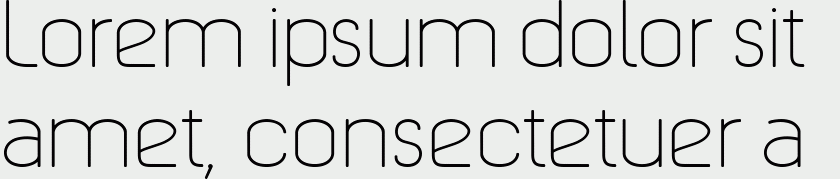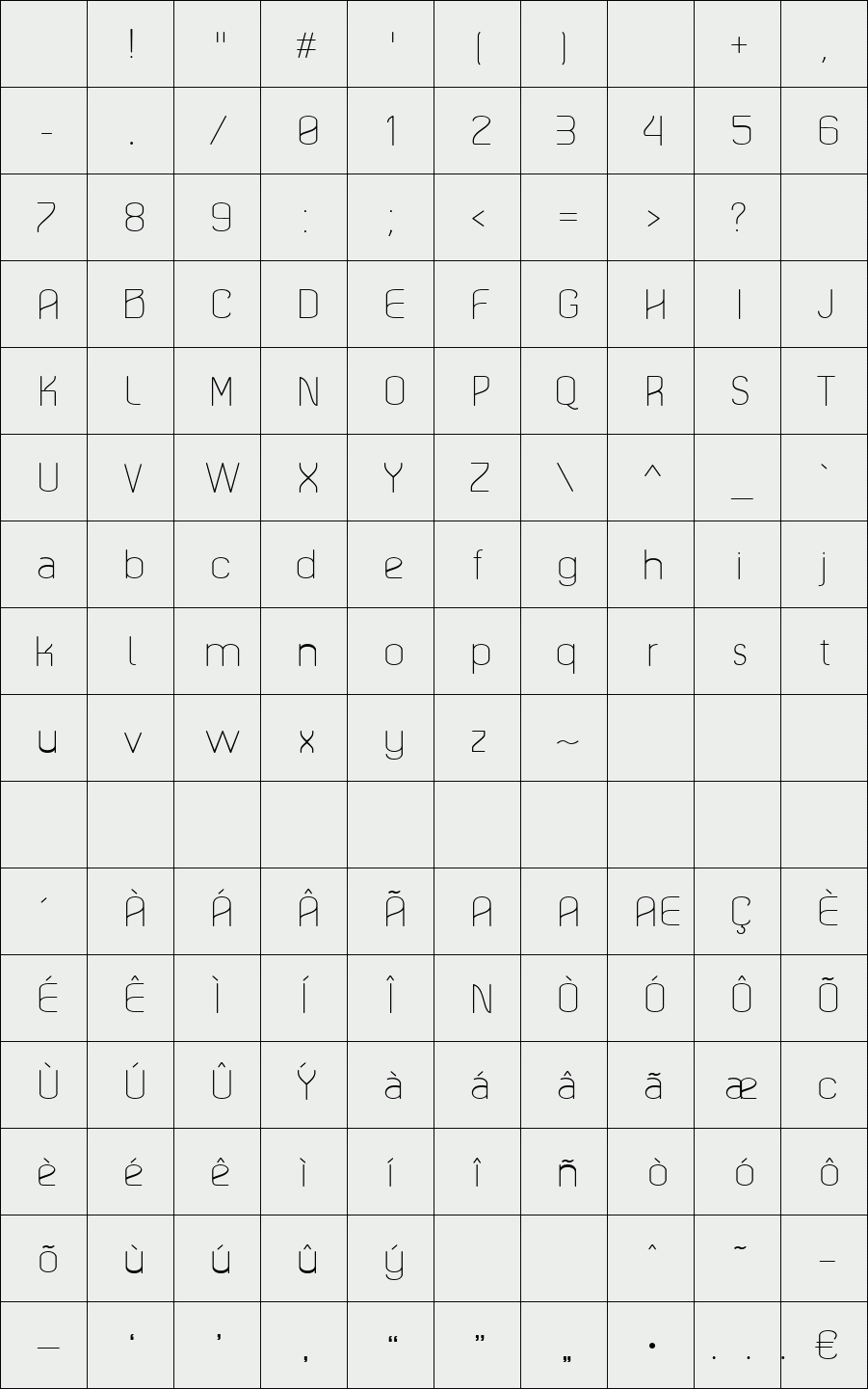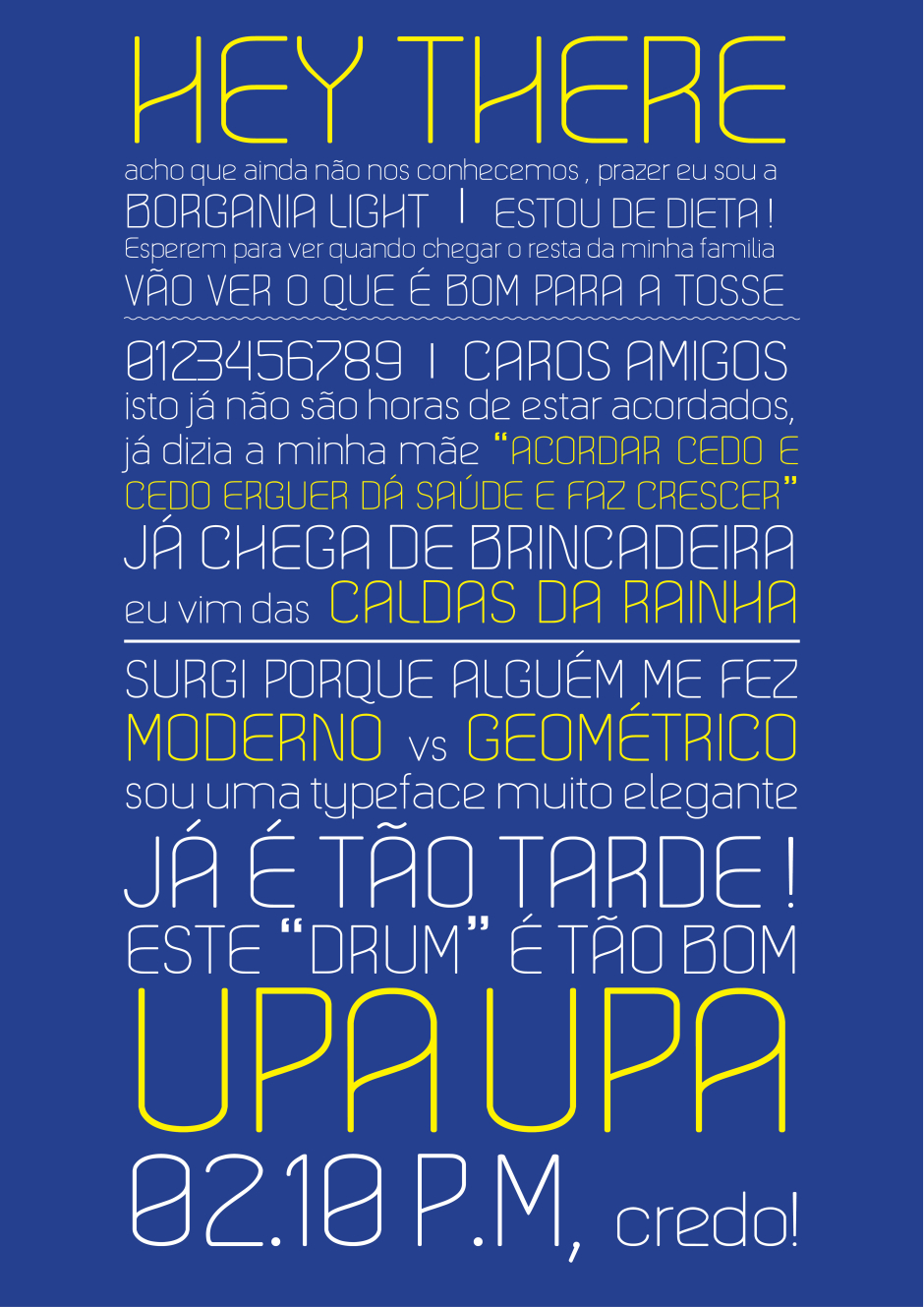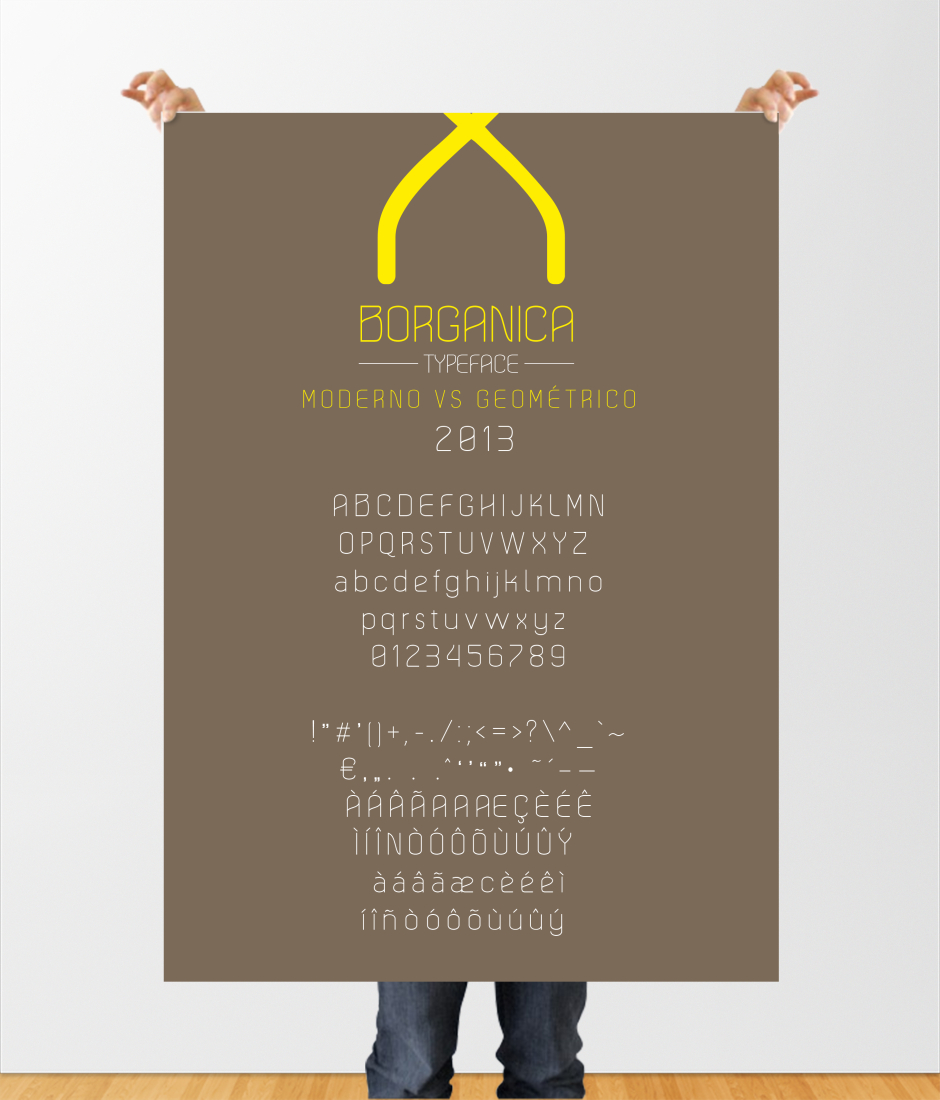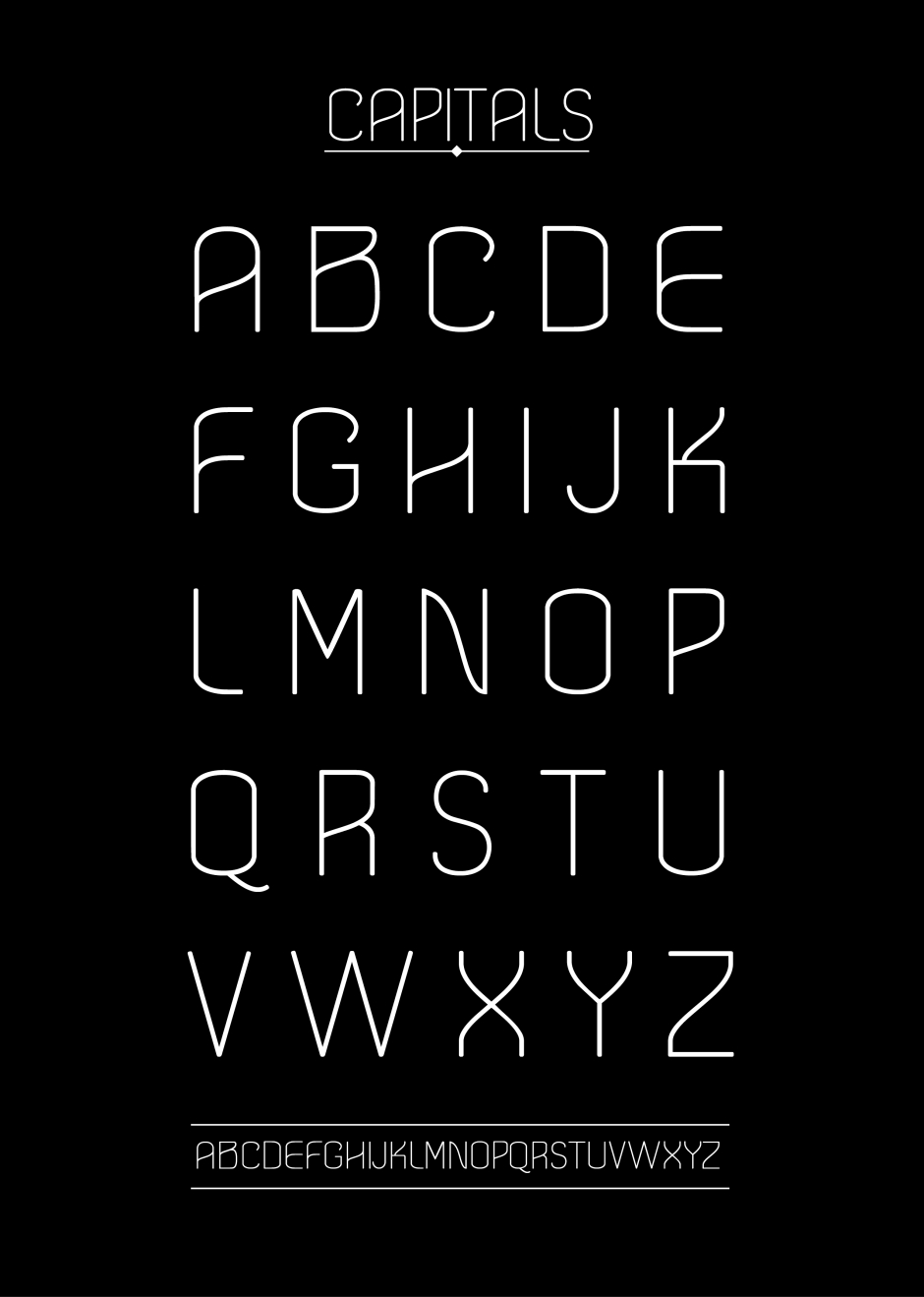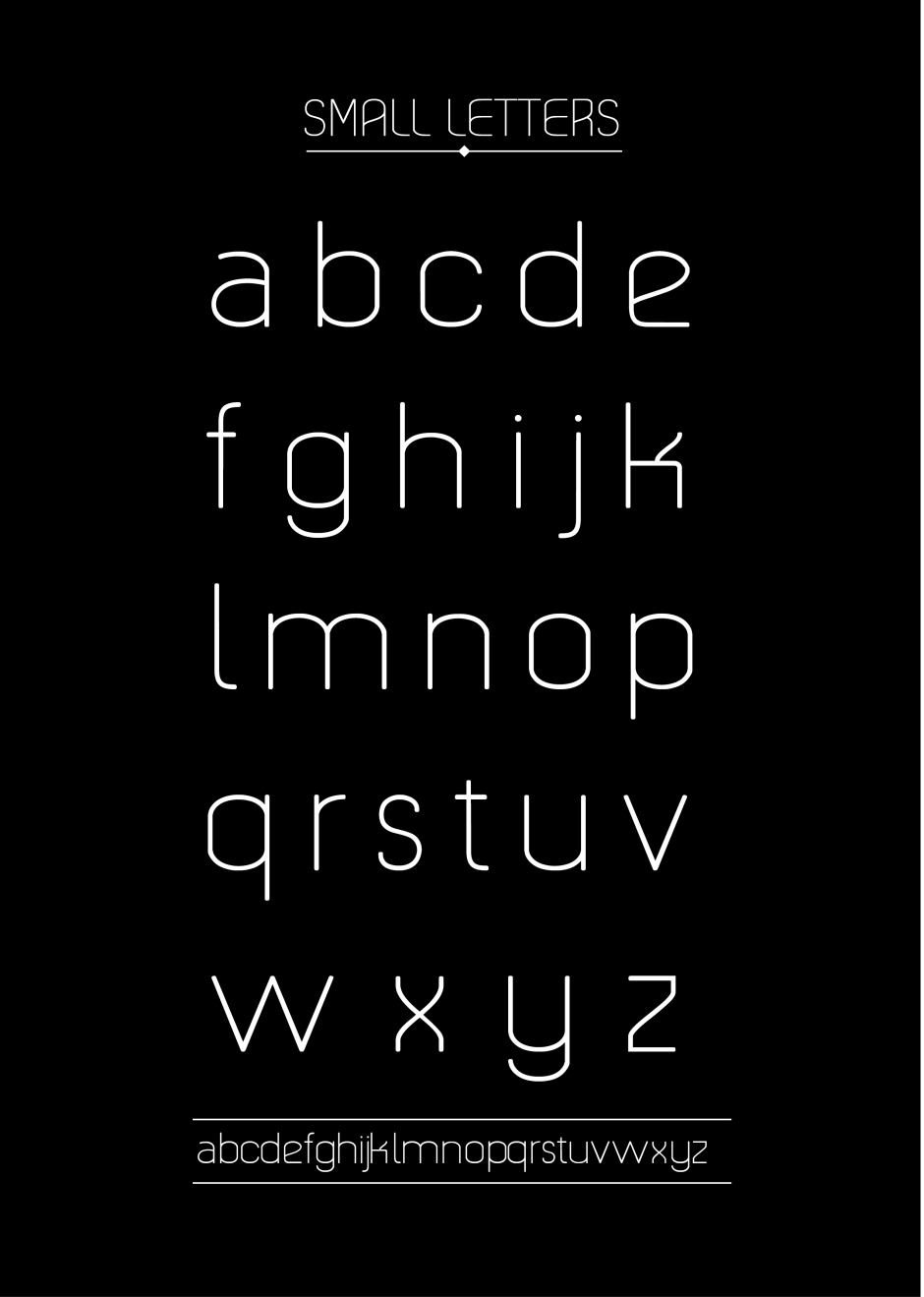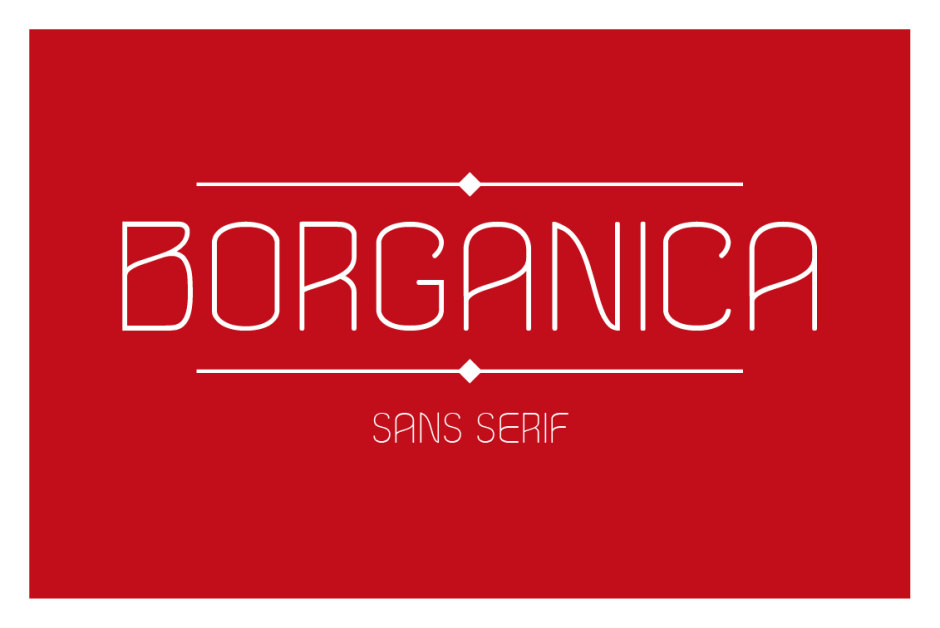
Borganica
Borganica is a sans serif typeface with Capitals, Small Letters, Numbers & Special glyphs and Punctuation. Can be used on any platform and for different print or digital projects. Inspired by the Art Noveu, stands out for its elegance and lightness in their shapes, contrasts between
the modern and geometry.
Designer: Alexandre Filipe Tiago